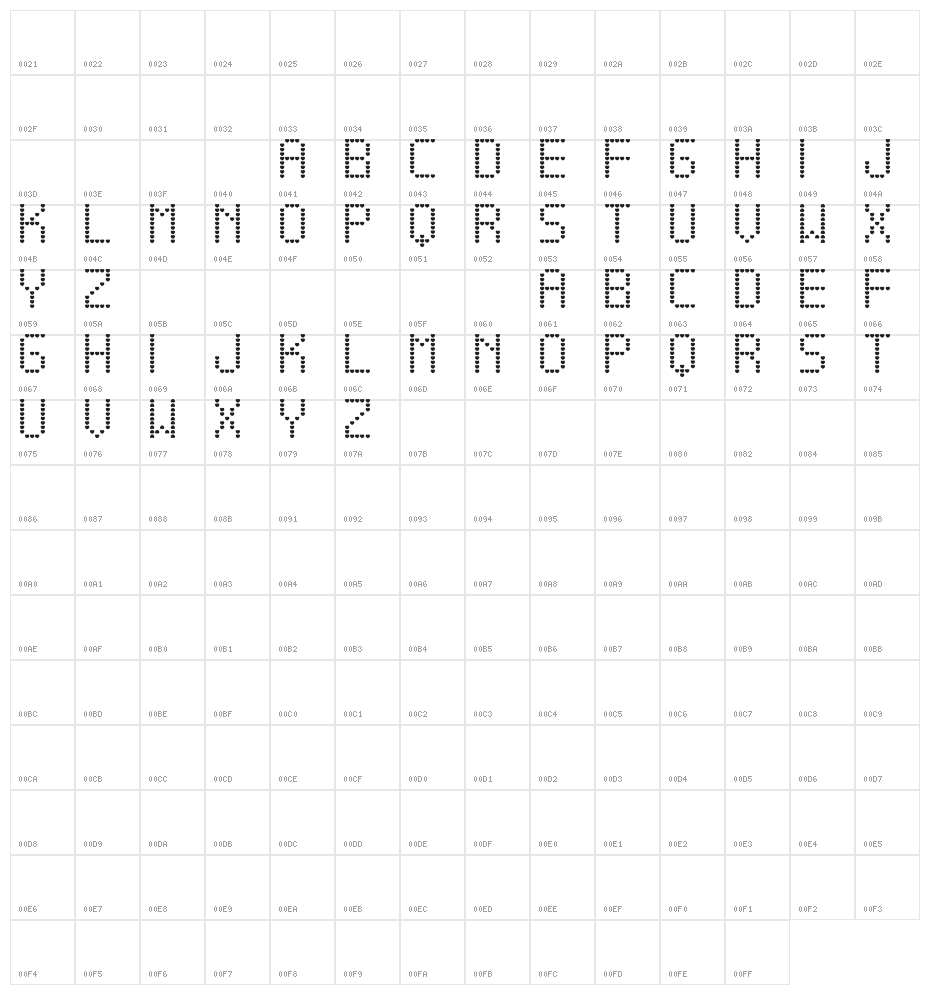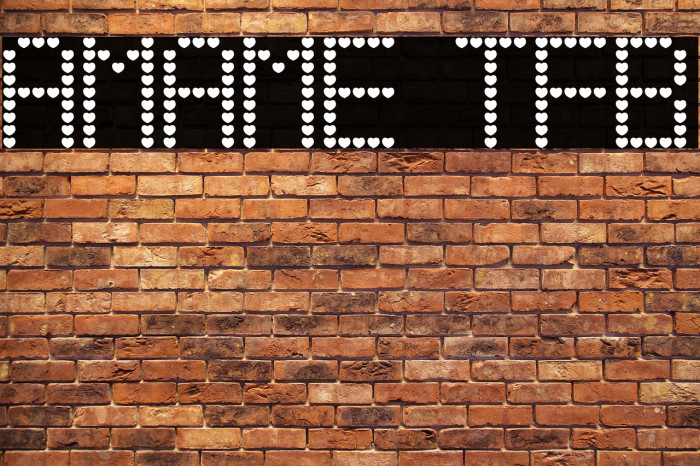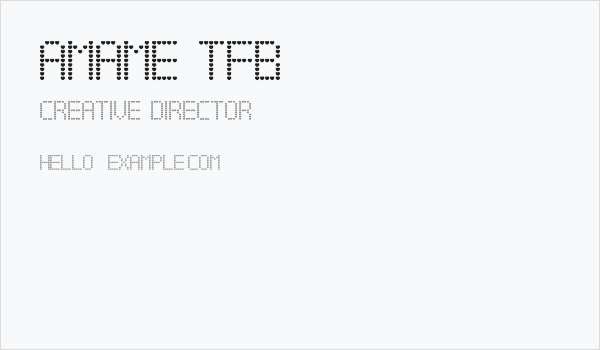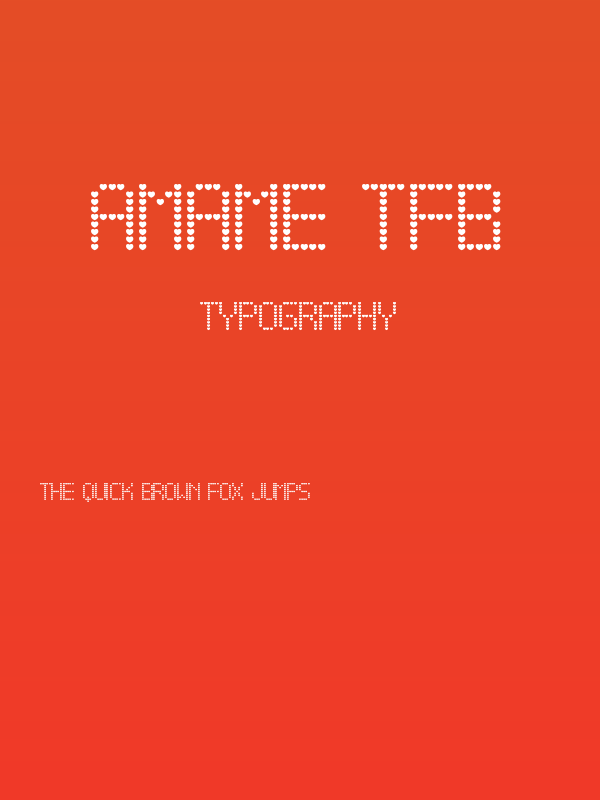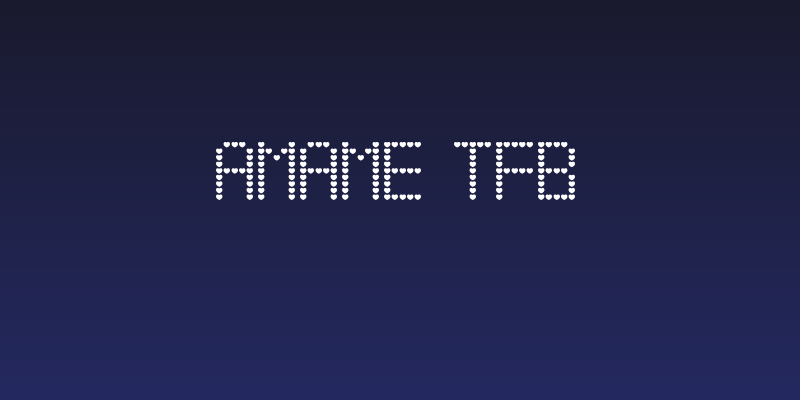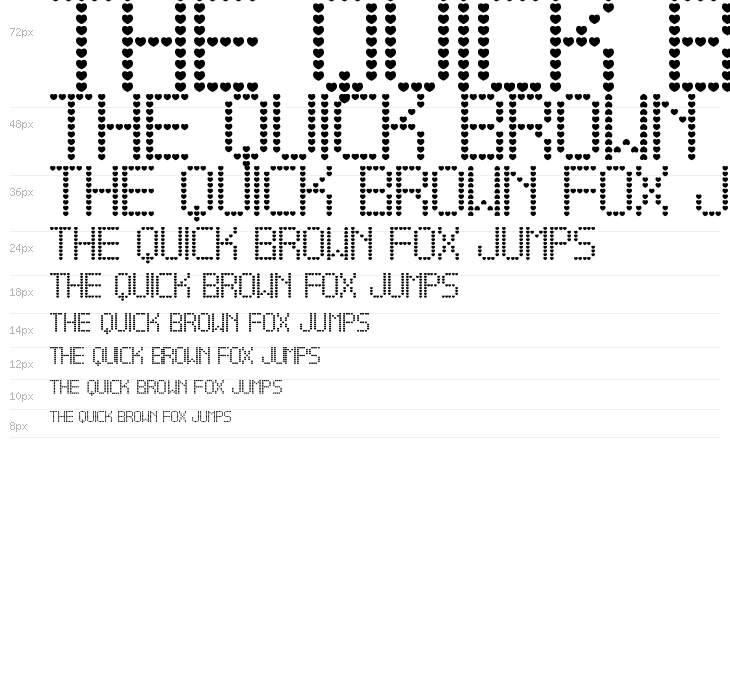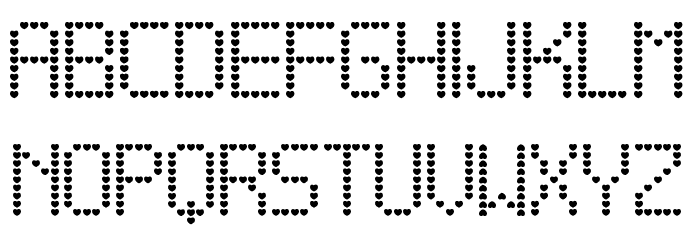
Amame tfb Font
Amame tfb Description
This font features a unique dotted pattern, with each character composed of a series of evenly spaced dots. The design is geometric and structured, giving it a modern and digital appearance. The uppercase and lowercase letters maintain a consistent style, with clean lines formed by the dots. The numerals and special characters follow the same dotted motif, ensuring uniformity across all characters. This font's playful yet precise design makes it stand out, ideal for creative projects that require a distinctive and eye-catching typeface.
| Use Case | Headlines, Logos, Digital displays |
| Proposed Projects | Ideal for digital displays, tech-themed designs, posters, and creative branding projects. |